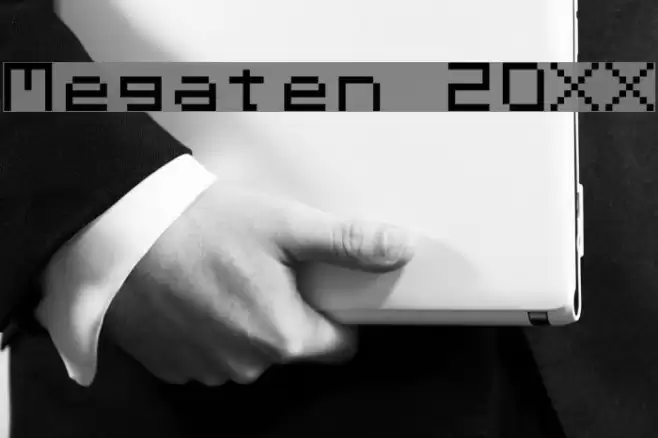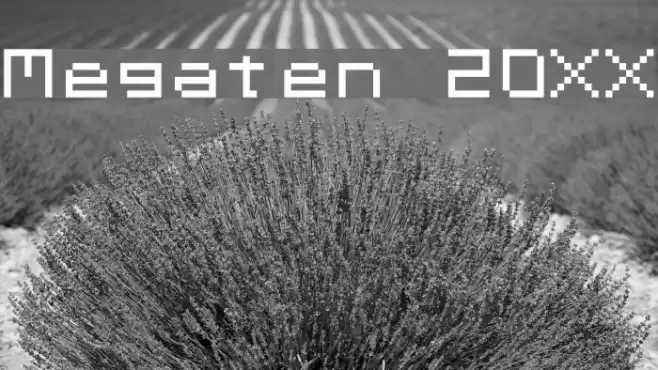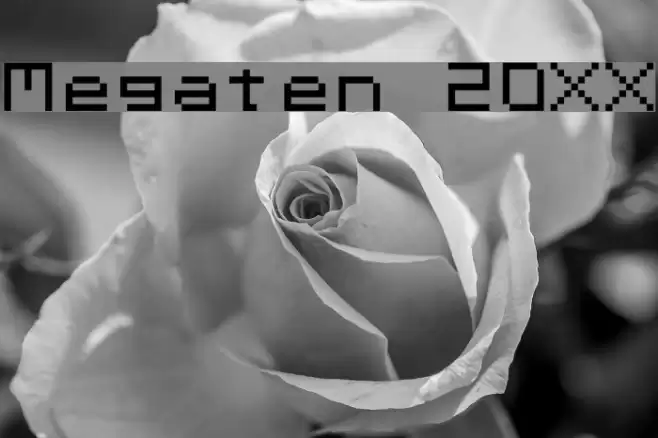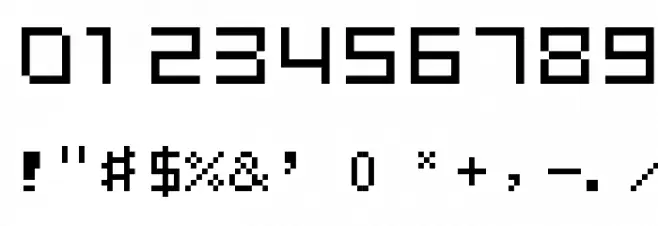
Megaten 20XX Font
Megaten 20XX Description
This font features a distinctly modern and digital aesthetic, characterized by its pixelated, block-like structure reminiscent of early computer graphics and video game typography. Each character is composed of sharp, angular lines, giving it a futuristic and technical feel. The uppercase and lowercase letters maintain a consistent geometric form, while the numerals and special characters follow the same design principles, ensuring uniformity across the typeface. The font's simplicity and clarity make it highly legible, even at smaller sizes, and its unique style is ideal for projects that require a retro or tech-inspired look.
A pixelated, modern font with a digital, retro aesthetic from Uncategorized fonts.
- Proposed Projects: Ideal for video game design, tech branding, digital art projects, and retro-themed graphics.
- Use Case: Logos, Headlines, Digital interfaces